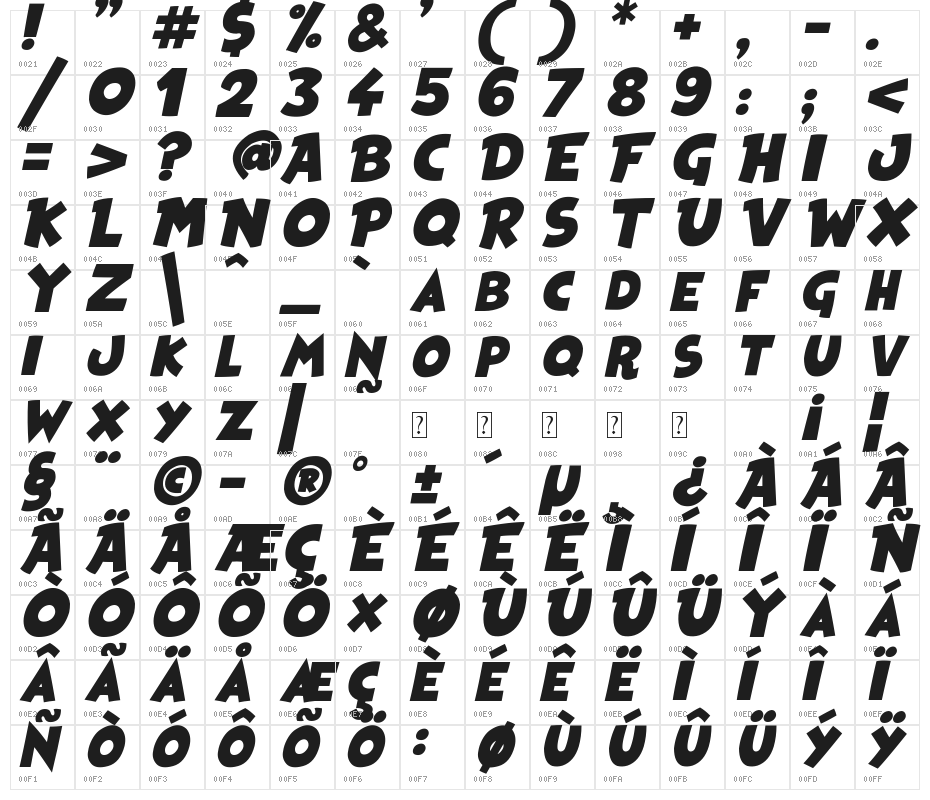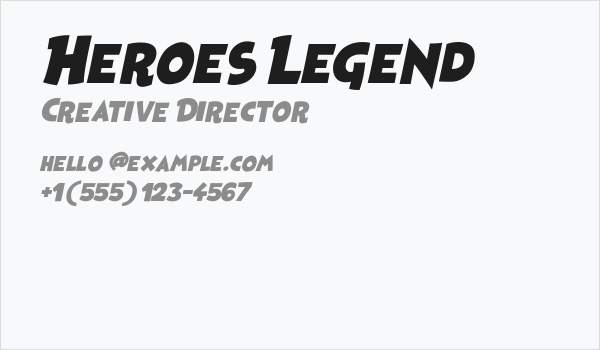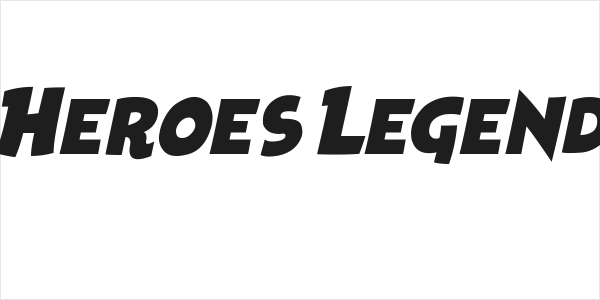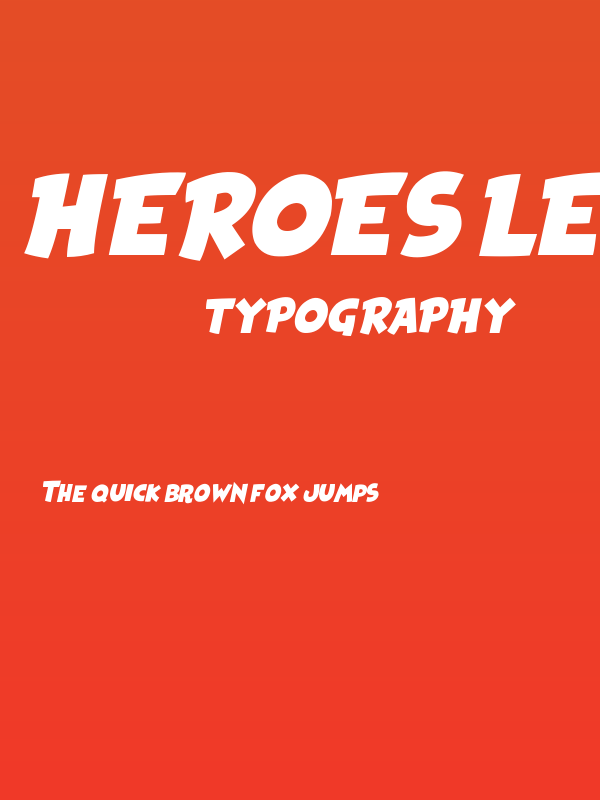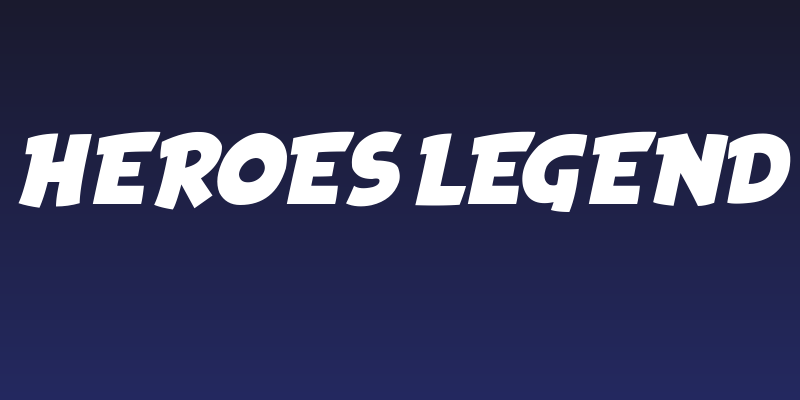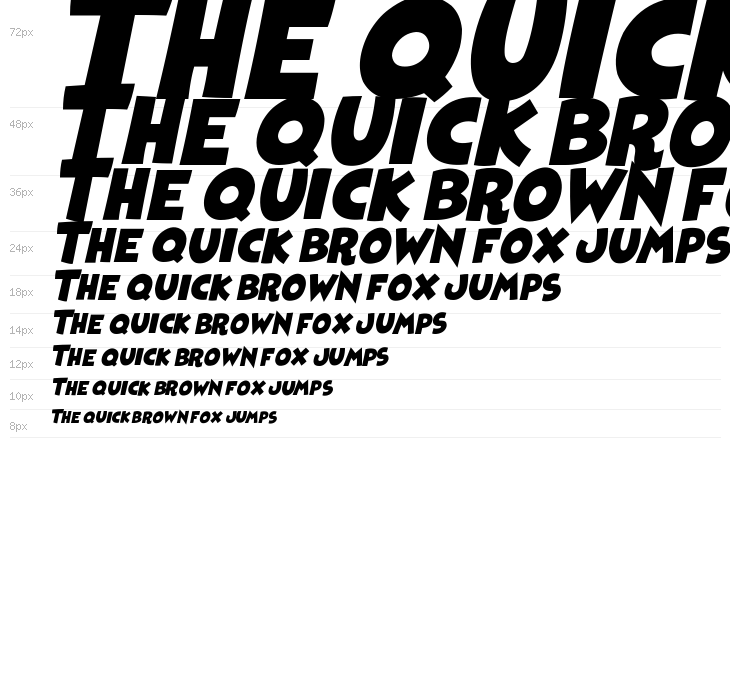
Heroes Legend Font
Heroes Legend Description
This bold and dynamic font features a strong, angular design with a sense of movement and energy. The uppercase letters are robust and slightly italicized, giving them a forward-leaning appearance that suggests action and speed. The lowercase letters maintain the same boldness, ensuring consistency across text. Numbers are equally bold, with a slight slant that matches the overall style. Special characters are designed to complement the letters and numbers, maintaining the font's cohesive look. The font's thick strokes and sharp edges make it ideal for attention-grabbing headlines and impactful designs.
Proposed ProjectsIdeal for superhero-themed designs, action movie posters, video game titles, and dynamic branding projects.